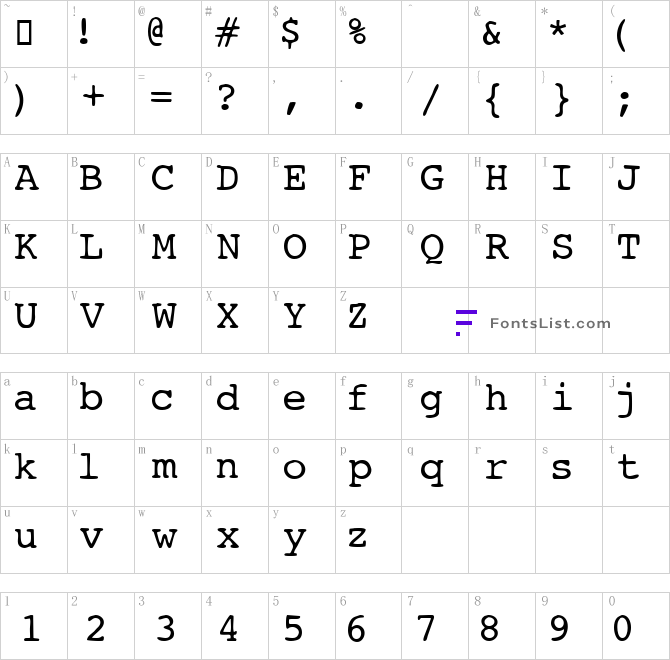
- Font Name:AL Post Master
AL-Post-Master.ttf is a very beautiful artistic font, AL-Post-Master.ttf is widely used in the design and printing of various books and pictures,AL-Post-Master.ttf has a strong visual impact,AL-Post-Master.ttf is a commonly used font in newspapers, magazines and books, and is used in posters, e-commerce Poster design, store design, logo design, font design and other fields.AL-Post-Master.